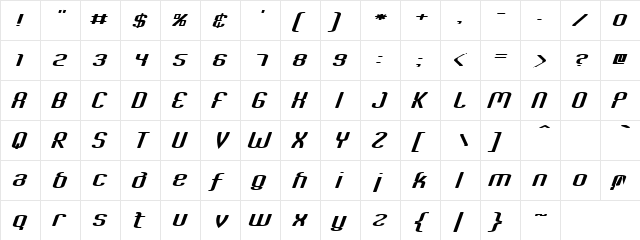
Slatin Daancin Regular
Design Context for Slatin Daancin Typeface
Slatin Daancin is a composed and adaptable typeface that performs quietly and consistently across a wide range of design contexts.